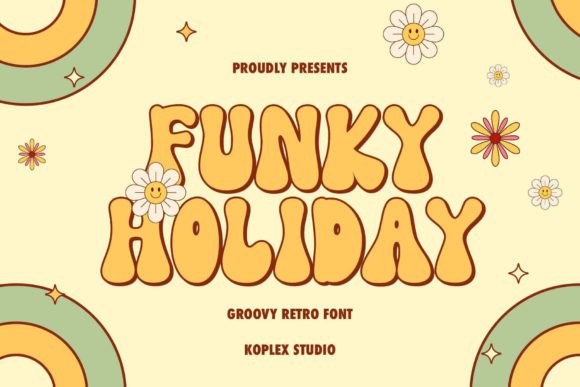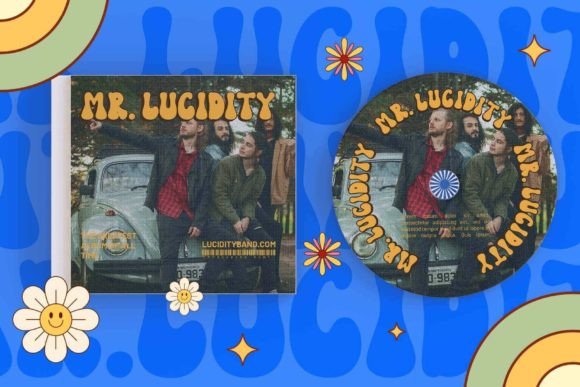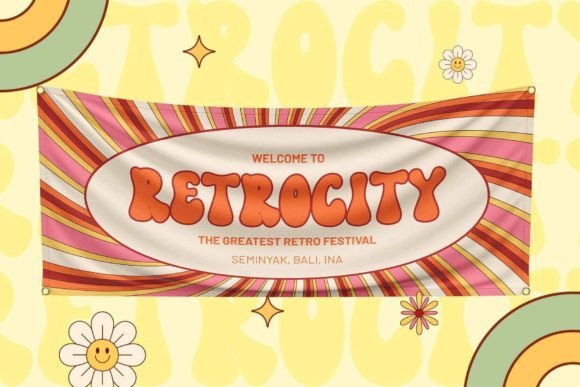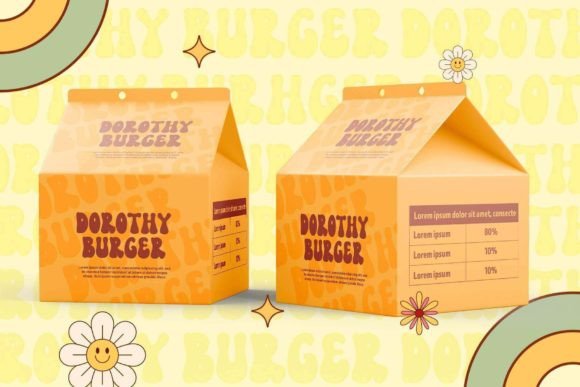
Funky Holiday Font
About the Funky Holiday Font
Crafted with precision, the Funky Holiday Font is ready to bring your ideas to life. Funky Holiday – Groovy Retro Font is a vibrant and nostalgic font that will transport you to the cheerful and carefree atmosphere of the 70s. This font embodies the essence of retro design with its bold and playful letterforms, reminiscent of disco parties and funky vibes. With its unique and eye-catching style.
Funky Holiday excels in headline applications, short slogans, and playful branding projects where a retro aesthetic is desired. Its bold character makes it ideal for posters, packaging for novelty items, or social media graphics aiming for a vintage, fun feel. However, its highly stylized forms make it unsuitable for body text or extended reading; legibility suffers at smaller sizes.
This font’s core personality is undeniably bold and playful. To balance its retro energy, consider pairing it with a clean sans-serif like Open Sans for body copy or a more geometric sans-serif like Futura for a modern contrast. For a softer contrast, a script font with a similar vintage feel could work well, provided it’s used sparingly.
Avoid using Funky Holiday in user interfaces (UI) or situations requiring high readability. The font’s strength lies in its ability to grab attention, not facilitate comfortable reading.